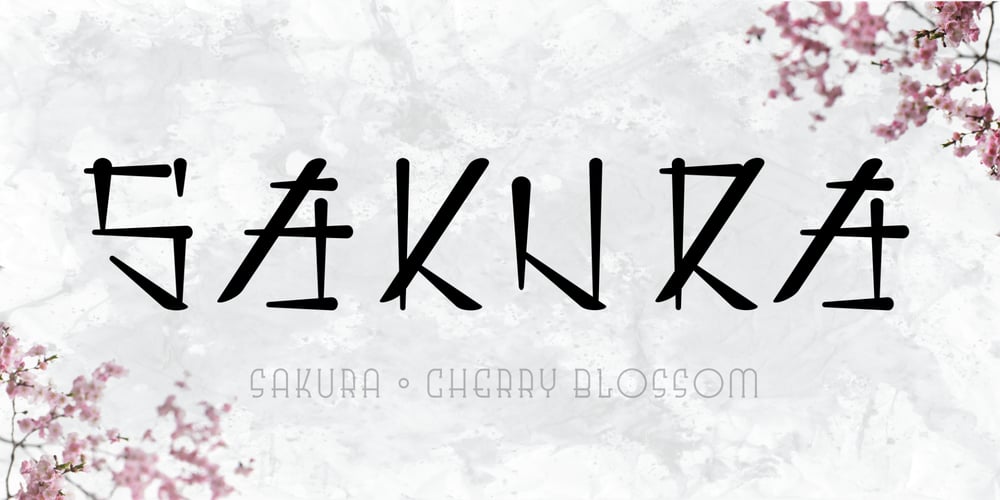
Sakura Font Family was designed by Michael Kovacevich and published by MKGD. Sakura contains 1 styles and family package options. Early in my career as a graphic designer I purchased a book on Japanese packaging. With it, I came to notice that Japanese characters used mostly a modicum of strokes. This font was my attempt at trying to balance the familiarity of a Latin alphabet with the unfamiliarity of Kanji and Kana. It was more of a typographical challenge than usual; since going too much in either direction would defeat the purpose. I would like to think that, for the most part, I got the balance right.Sakura has a glyph count of 389 and supports the following languagesAfrikaans, Albanian, Asu, Basque, Bemba, Bena, Bosnian, Catalan, Chiga, Colognian, Cornish, Croatian, Czech, Danish, Embu, English, Esperanto, Estonian, Faroese, Filipino, Finnish, French, Friulian, Galician, German, Gusii, Hungarian, Icelandic, Indonesian, Irish, Italian, Kabuverdianu, Kalaallisut, Kalenjin, Kamba, Kikuyu, Kinyarwanda, Latvian, Lithuanian, Low German, Lower Sorbian, Luo, Luxembourgish, Luyia, Machame, Makhuwa-Meetto, Makonde, Malagasy, Malay, Maltese, Manx, Meru, Morisyen, North Ndebele, Norwegian Bokmål, Norwegian Nynorsk, Nyankole, Oromo, Polish, Portuguese, Romanian, Romansh, Rombo, Rundi, Rwa, Samburu, Sango, Sangu, Scottish Gaelic, Sena, Shambala, Shona, Slovak, Slovenian, Soga, Somali, Spanish, Swahili, Swedish, Swiss German, Taita, Teso, Turkmen, Upper Sorbian, Vunjo, Walser, Zulu